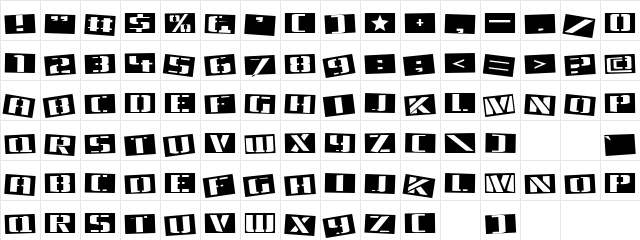
Akbar The Great Regular
Design Context for Akbar The Great Typeface
Akbar The Great is a composed and adaptable typeface that performs quietly and consistently across a wide range of design contexts.